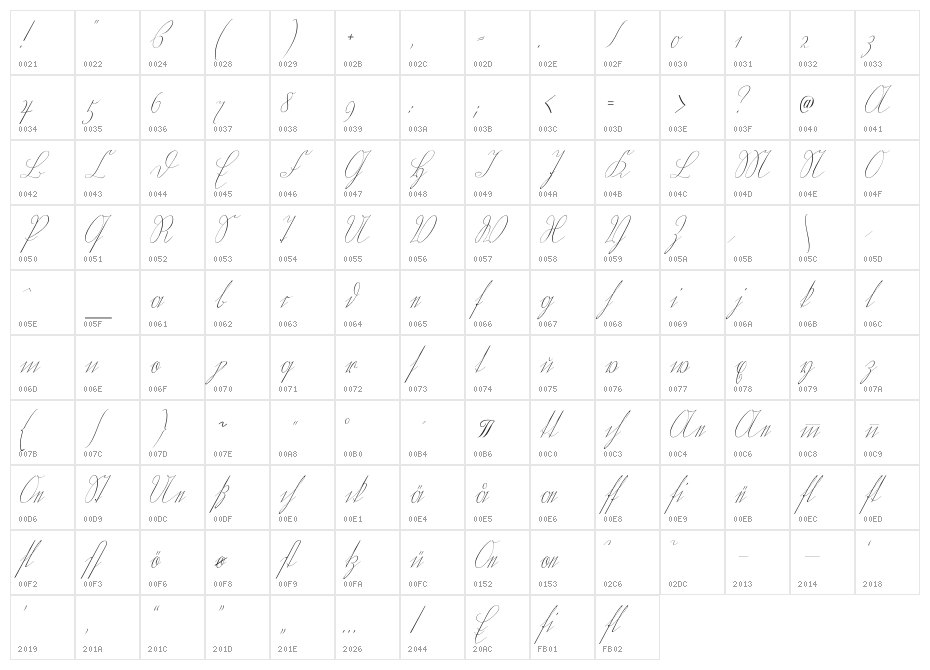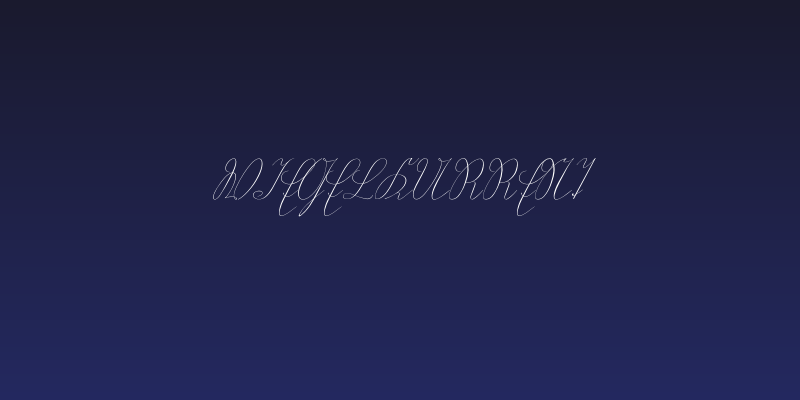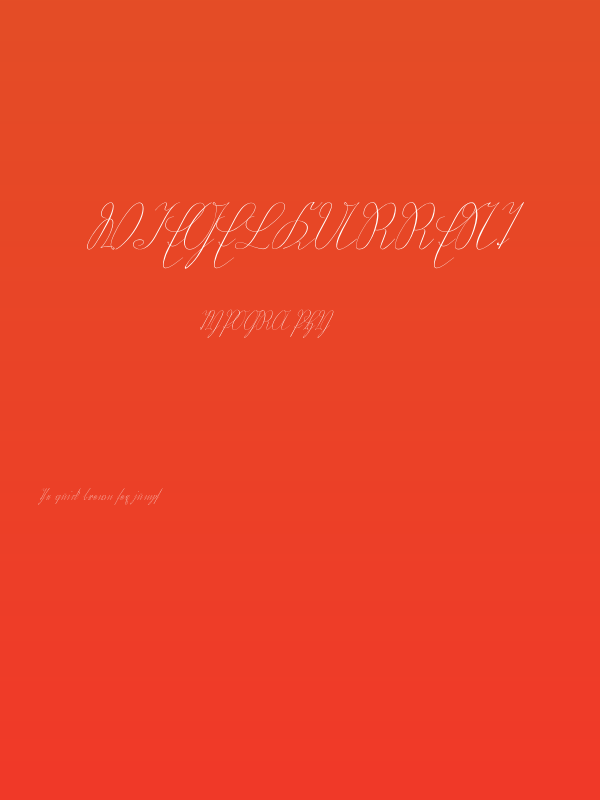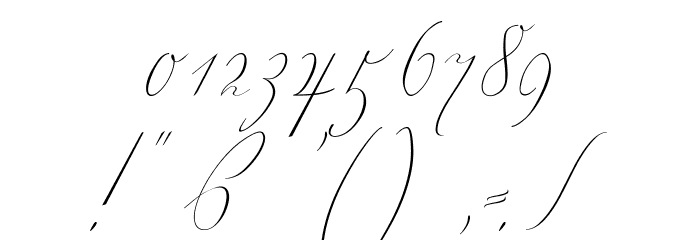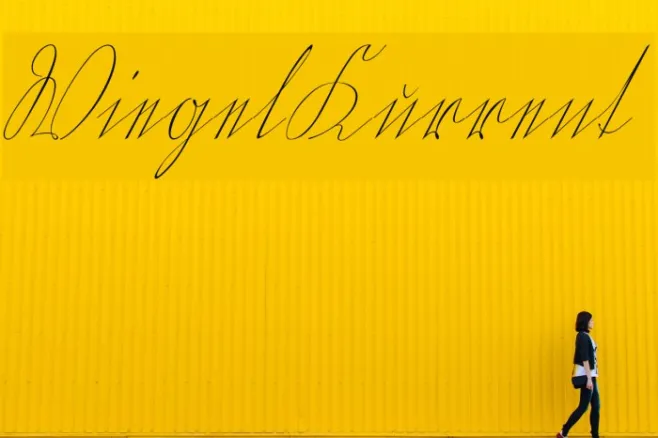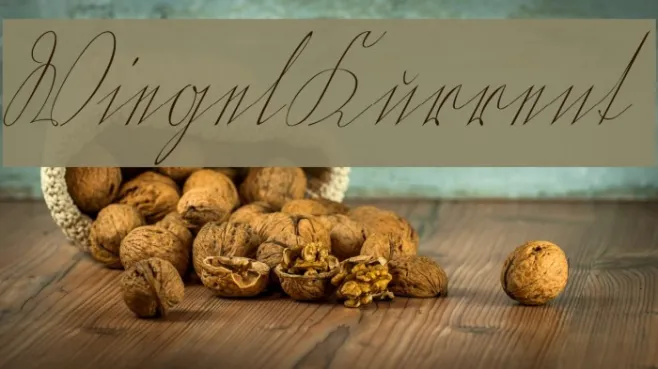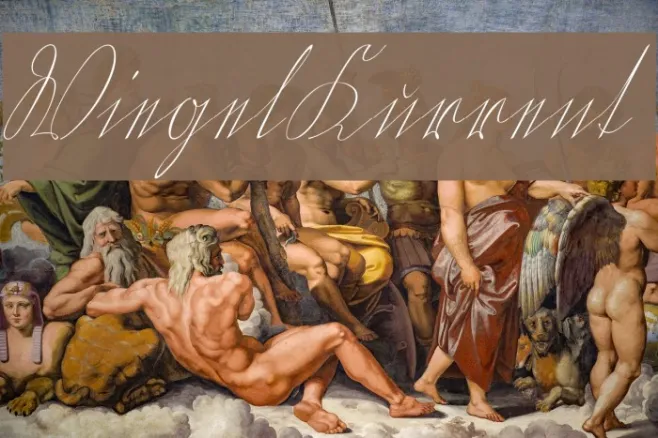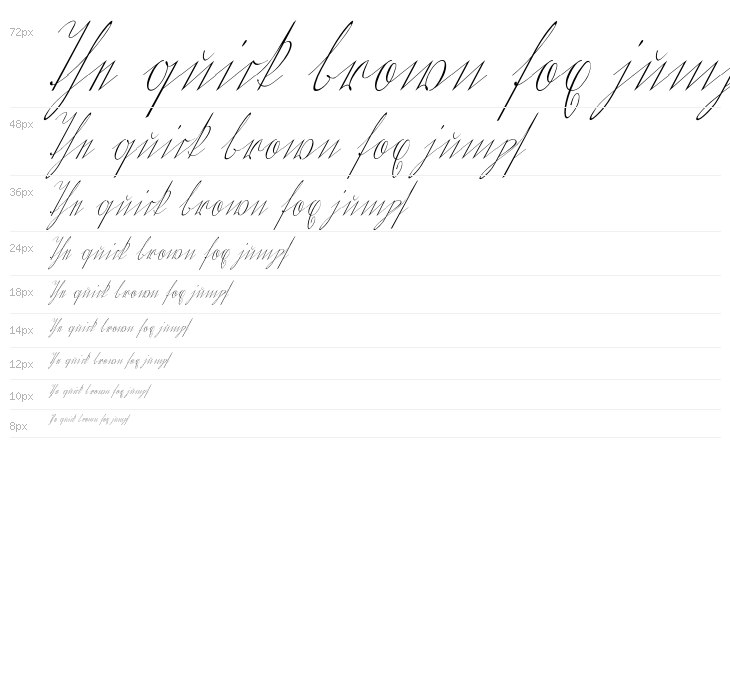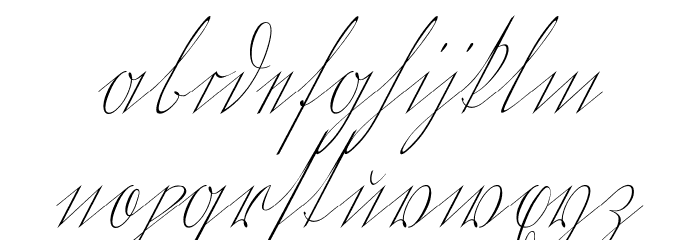
WiegelKurrent Font
WiegelKurrent Description
This font features an elegant and flowing script style, reminiscent of traditional calligraphy. The characters are intricately designed with graceful loops and swashes, giving it a sophisticated and artistic appearance. The uppercase letters are particularly ornate, with elaborate flourishes that add a touch of grandeur. The lowercase letters maintain a consistent flow, enhancing readability while retaining the decorative essence. The numerals and special characters are crafted with the same attention to detail, ensuring a cohesive look across all elements. This font exudes a vintage charm, making it suitable for projects that require a classic and refined aesthetic.
WIEGELKURRENT UPPERCASE
WIEGELKURRENT LOWERCASE
WIEGELKURRENT OTHER CHARS